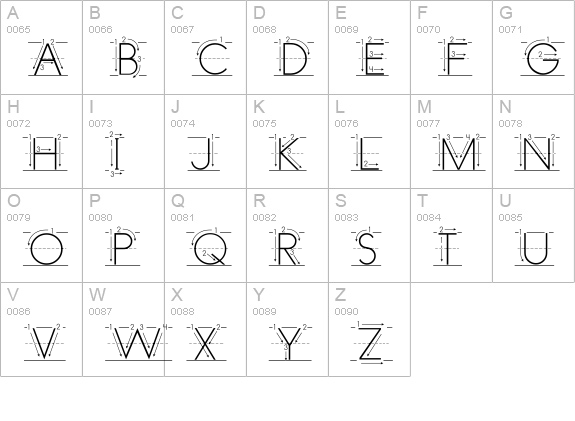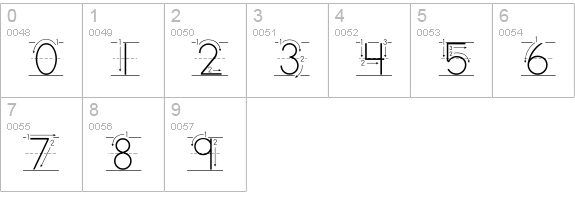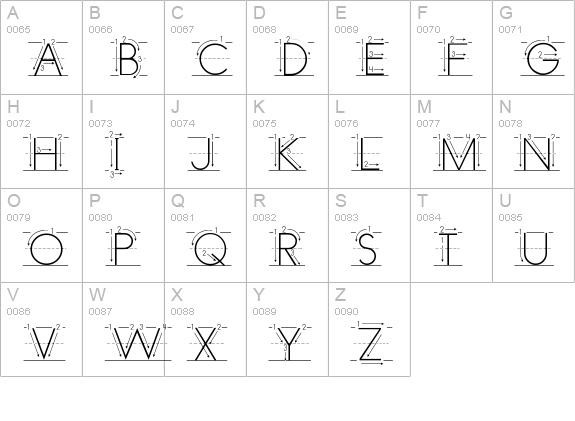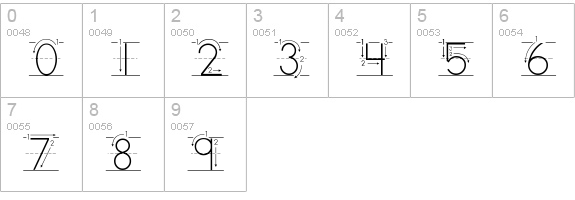
AbcPrintArrow Font Details
AbcPrintArrow font is a modern and stylish typeface that combines sleek lines with a playful arrow design, making it perfect for a wide range of creative projects. This unique font exudes a sense of energy and movement, making it ideal for adding a dynamic touch to your designs. What sets AbcPrintArrow font apart is its versatility - whether you're designing a poster, logo, or website, this font will help your text stand out and make a lasting impression. Its clean and legible characters ensure that your message is always clear and easy to read. Best of all, AbcPrintArrow font is available for free download at FontsMarket.com, allowing you to enhance your projects without breaking the bank. Don't miss out on this fantastic opportunity to elevate your designs with the striking AbcPrintArrow font. Download it today and unleash your creativity!